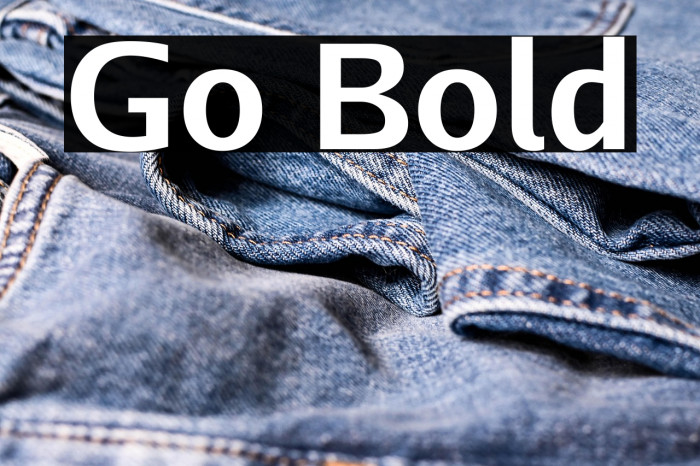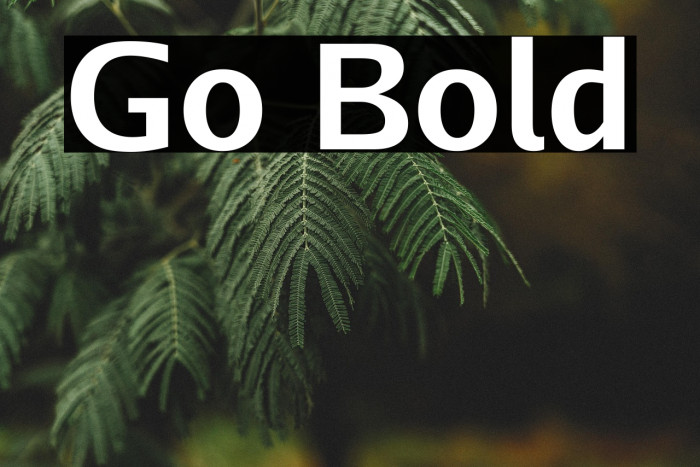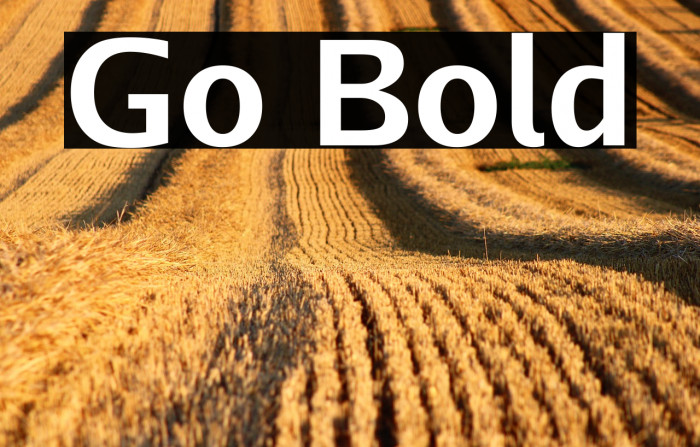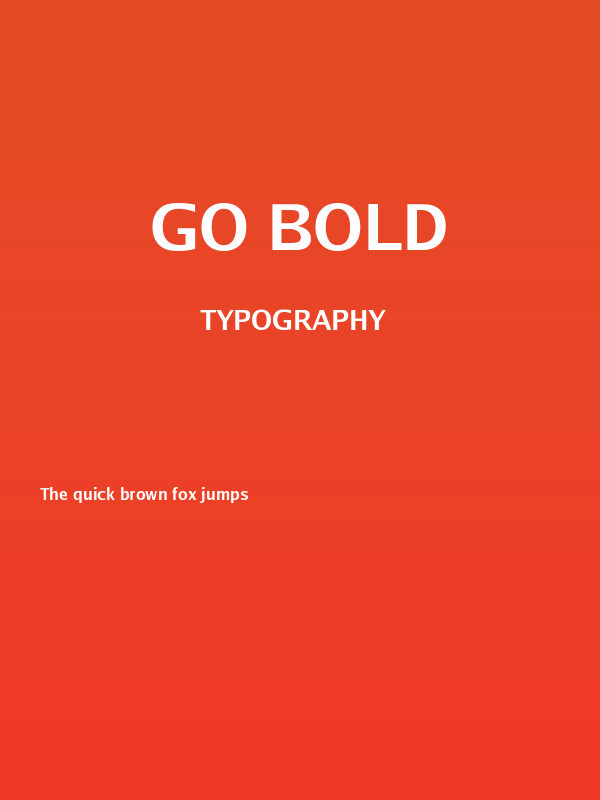
Go Bold Font
Go Bold Description
This font exhibits a bold and modern sans-serif style, characterized by clean lines and a robust presence. The uppercase and lowercase letters maintain a consistent weight, providing a strong visual impact. The numerals are clear and easily distinguishable, making them suitable for various applications. Special characters are well-defined, ensuring versatility in usage. The overall design is straightforward yet impactful, making it ideal for attention-grabbing headlines or branding materials.
| Use Case | Headlines, Logos, Advertising |
| Proposed Projects | Ideal for branding, advertising, headlines, and digital media where a strong, modern presence is desired. |